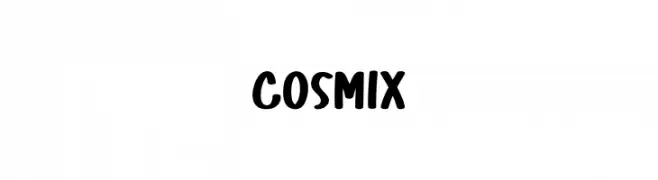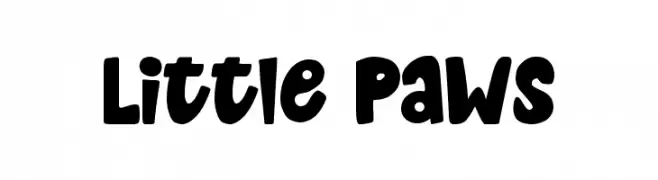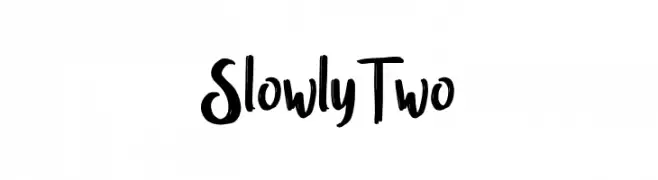
A bold, playful font with thick, irregular strokes and a hand-drawn feel.
A bold, playful font with rounded, hand-drawn characters.
A bold, angular font with a distressed texture, perfect for edgy and impactful designs.
A bold, playful font with rounded edges and a friendly appearance.
A bold, ethnic-inspired font with geometric and decorative elements.
A playful, bold font with rounded, thick strokes and a whimsical, friendly appearance.
A bold, expressive script font with a handwritten style.
A bold, hand-drawn font with a playful, brush-lettering style.
A bold, playful font with bite-like cut-outs in each character.
A playful, grapevine-themed decorative font with bold, rounded characters.